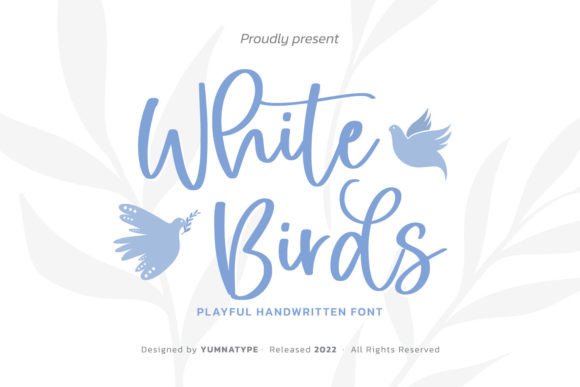
Are you searching for the perfect font for your sports game project? Look no further than White Birds Font! Created by the talented designer Yumna_Type, this handmade script font is a creative and eye-catching way to elevate your designs.
With its playful cursive style and dancing baseline, White Birds Font exudes a fun and modern vibe that is perfect for sports-related projects. Its uneven letter heights add visual interest and make each word feel like it's in motion. Whether you're designing a team logo, a sports-themed poster, or a website for a sports league, White Birds Font is sure to add a touch of elegance and charm.
But this font isn't just for sports-related projects. Its decorative and unique design make it versatile for a range of other uses as well. Use it for wedding invitations, product packaging, social media graphics, or anything that needs a touch of whimsy and sophistication.